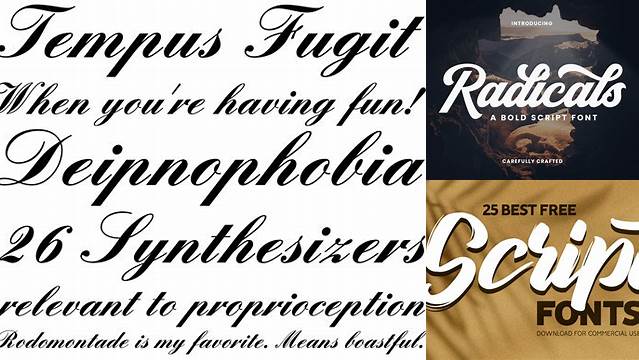
Free English Script Bold Fonts: Download Now!
Hey guys! Are you on the hunt for some stunning English script bold fonts? You've come to the right place! In this article, we're diving deep into the world of beautiful, bold script fonts that you can download for free. Whether you're working on a wedding invitation, a logo, or just want to add a touch of elegance to your designs, we've got you covered. So, let's get started and explore the best options out there!
1. What is an English Script Bold Font?
Let's kick things off with the basics. What exactly is an English script bold font? Well, it's a typeface that combines the flowing, cursive style of traditional handwriting with a bold weight. This means it's not only beautiful and elegant but also eye-catching and impactful. The boldness adds a certain gravitas, making it perfect for headlines, titles, and anywhere you want to make a statement. These fonts often mimic calligraphy or classic penmanship, giving your projects a touch of sophistication and charm. When you're looking to inject some personality and flair into your designs, English script bold fonts are definitely the way to go. They bring a sense of artistry and craftsmanship that's hard to ignore, setting your work apart from the crowd and grabbing attention with their distinctive style.
2. The Appeal of Bold Script Fonts
So, why are bold script fonts so appealing? Think about it â they're like the chameleons of the font world! They can be both formal and fun, elegant and edgy, all depending on how you use them. The cursive nature of script fonts adds a personal touch, almost like a handwritten note, while the boldness ensures your message doesn't get lost. This combination makes them incredibly versatile. Imagine using a bold script font for a wedding invitation â it instantly adds a touch of romance and sophistication. Or picture it on a business card, conveying both professionalism and creativity. The visual impact of these fonts is undeniable. They have a unique way of drawing the eye and leaving a lasting impression. Whether it's for a digital project or a print design, bold script fonts bring a level of artistry that elevates the overall aesthetic, making your work stand out and capturing attention with their distinctive flair.
3. Where to Use English Script Bold Fonts
Now, let's talk about where you can actually use these fonts. Honestly, the possibilities are endless! They're fantastic for branding, logos, invitations, posters, social media graphicsâĻ you name it. For branding, a bold script font can give your logo a memorable and classy look. Think about luxury brands or boutique businesses â these fonts often align perfectly with their image. When it comes to invitations, especially for weddings or special events, they add a touch of elegance and personal flair. The flowing lines mimic beautiful handwriting, making your invitations feel extra special. On posters and social media, they can grab attention and convey a sense of style and sophistication. Whether you're announcing an event or promoting a product, a well-chosen bold script font can make your message pop. The key is to consider the overall tone and purpose of your project. If you're aiming for a classic, refined feel, a script font is a fantastic choice. Just remember to balance it with other fonts to ensure readability and visual harmony. With a little creativity, you can find countless ways to incorporate these stylish fonts into your designs and elevate your projects to the next level.
6. Best English Script Bold Fonts for Logos
If you're designing a logo, choosing the right font is critical. A bold script font can add a touch of elegance and personality to your brand identity. Some of the best options for logos include fonts like " āĻā§āϝāĻžāύā§āϞā§āϰ āύāĻžāĻŽ ( āĻā§āϝāĻžāύā§āϞā§āϰ āύāĻžāĻŽ) ( āĻā§āϝāĻžāύā§āϞā§āϰ āύāĻžāĻŽ)" or " āĻā§āϝāĻžāύā§āϞā§āϰ āύāĻžāĻŽ ( āĻā§āϝāĻžāύā§āϞā§āϰ āύāĻžāĻŽ)āĨ¤" These fonts have a classic, sophisticated feel that works well for a variety of businesses. When selecting a font for your logo, think about your brand's personality. Do you want to convey luxury, creativity, or approachability? The font should align with your brand's overall image. A bold script font can be particularly effective for brands in industries like fashion, beauty, or handmade goods. It adds a human touch and a sense of craftsmanship. However, it's also essential to ensure the font is legible and scalable. Your logo will be used in various sizes, from business cards to website headers, so it needs to look good in all contexts. Experiment with different fonts and see how they look with your brand name and other design elements. A well-chosen bold script font can elevate your logo and help you create a memorable brand identity.
7. Using Bold Script Fonts in Wedding Invitations
Wedding invitations are the perfect canvas for beautiful script fonts! They instantly add a touch of romance and elegance, setting the tone for a special occasion. When it comes to bold script fonts for invitations, you have tons of fantastic choices. Fonts like " āĻā§āϝāĻžāύā§āϞā§āϰ āύāĻžāĻŽ ( āĻā§āϝāĻžāύā§āϞā§āϰ āύāĻžāĻŽ)" or " āĻā§āϝāĻžāύā§āϞā§āϰ āύāĻžāĻŽ ( āĻā§āϝāĻžāύā§āϞā§āϰ āύāĻžāĻŽ)" are classic and timeless options that exude sophistication. The flowing lines mimic elegant handwriting, making your invitations feel extra personalized. When using script fonts on invitations, it's crucial to balance them with a more readable font for the essential details, like the date, time, and venue. A simple sans-serif font works well for this purpose. You can use the bold script font for the names of the couple or for headings like "You're Invited." Think about the overall style of your wedding when choosing a font. A bold script font can work for both formal and semi-formal weddings, but make sure it complements the other design elements, like the paper texture, colors, and any illustrations. The goal is to create an invitation that is both beautiful and easy to read. With the right bold script font, your wedding invitations will make a stunning first impression.
8. Combining Bold Script Fonts with Other Fonts
One of the keys to using bold script fonts effectively is knowing how to combine them with other fonts. While script fonts are beautiful, they can be tricky to read in large blocks of text. That's why it's important to pair them with a more legible font for body text or details. A classic combination is a bold script font for headings or titles with a simple sans-serif font for the body. This creates a nice contrast and ensures that your message is clear. For example, you might use a font like " āĻā§āϝāĻžāύā§āϞā§āϰ āύāĻžāĻŽ ( āĻā§āϝāĻžāύā§āϞā§āϰ āύāĻžāĻŽ)" for a heading and pair it with a font like Arial or Helvetica for the body text. Another option is to combine a bold script font with a serif font, such as Times New Roman or Garamond. This can create a more formal and traditional look. When choosing fonts to pair, think about the overall mood you want to create. Do you want a modern and minimalist feel, or a more classic and elegant one? The fonts you choose should complement each other and work together to create a cohesive design. Experiment with different combinations until you find a pairing that feels just right. By mastering the art of font pairing, you can use bold script fonts to their full potential and create stunning designs.
9. Bold Script Fonts for Branding Materials
Branding materials are all about making a memorable impression, and bold script fonts can play a huge role in that! Whether it's your business cards, letterheads, or brochures, the fonts you choose communicate a lot about your brand's personality. A well-chosen bold script font can add a touch of sophistication and creativity, making your brand stand out. Think about how your brand wants to be perceived. Do you want to convey luxury, elegance, or a more handcrafted feel? A script font can help you achieve these goals. For example, a business card with your name in a beautiful bold script font can make a lasting impression on potential clients. On letterheads, it adds a touch of professionalism and personality. When designing brochures or other marketing materials, use a bold script font sparingly for headings or titles to grab attention. Remember to balance it with a more readable font for the main body text. Consistency is key when it comes to branding, so choose a font that you can use across all your materials. This will help create a cohesive and recognizable brand identity. With the right bold script font, your branding materials will make a statement and leave a lasting impression on your audience.
20. Common Mistakes to Avoid with Script Fonts
21. The History of Script Fonts
22. The Psychology of Font Choices
23. Best Bold Script Fonts for T-Shirt Designs
25. Customizing Bold Script Fonts
26. Bold Script Fonts for Certificates and Awards
27. Using Script Fonts in Video Editing
28. Bold Script Fonts for Book Covers
29. The Future of Font Design
30. Resources for Learning More About Typography